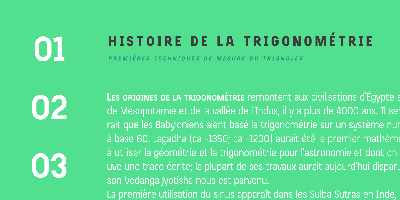
Ardoise Std Font is perfect for educational institution branding, academic publication layouts, scholarly journal headers, university marketing materials, textbook design, research presentation slides, library signage, intellectual property branding, professional conference materials, and academic conference promotions. Its scholarly character makes it ideal for projects requiring intellectual credibility and educational authority.
What makes Ardoise Std Font exciting is its perfect balance of academic tradition and contemporary readability that captures the essence of scholarly excellence and intellectual sophistication. The font features classical proportions, refined stroke consistency, and thoughtfully crafted letterforms that create an atmosphere of learning and knowledge authority. Its scholarly personality conveys trustworthiness and educational credibility, making it essential for institutions and brands that prioritize intellectual rigor and academic excellence. The carefully balanced traditional elements ensure exceptional readability across both print and digital academic applications while maintaining the distinguished character that elevates educational content.
Ardoise Std Font comes in multiple academic variations including Regular, Italic, Bold, Light, and Display styles. Each family member maintains the signature scholarly character while offering comprehensive flexibility for hierarchical academic typography and educational brand system development. The complete font family includes stylistic alternates, academic symbols, and educational punctuation marks that enhance the intellectual aesthetic and scholarly presentation quality.
Whether you're developing educational brands, academic publications, or scholarly projects, Ardoise Std Font Free Download delivers the intellectual authority needed to communicate with learned audiences and educational communities. The font's academic appeal resonates with educators, researchers, and knowledge-seeking audiences who value scholarly excellence and educational integrity. Its comprehensive character set includes international academic symbols and specialized notation marks, making it perfect for global educational institutions seeking to maintain consistent intellectual credibility across diverse academic disciplines and international scholarly communications.